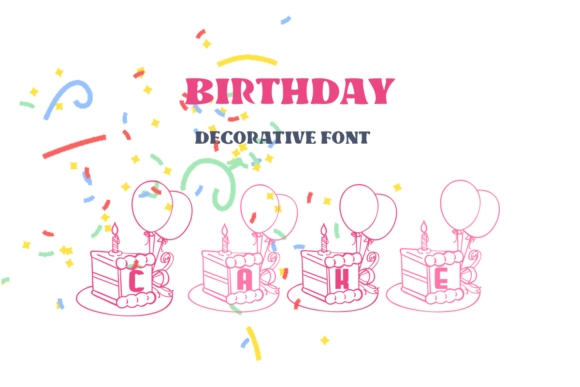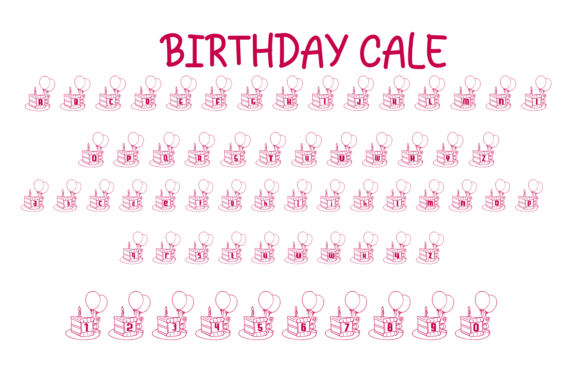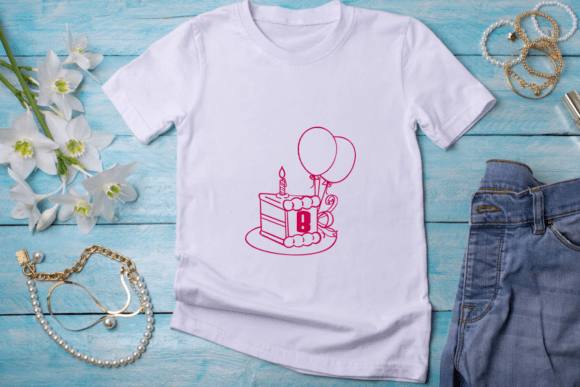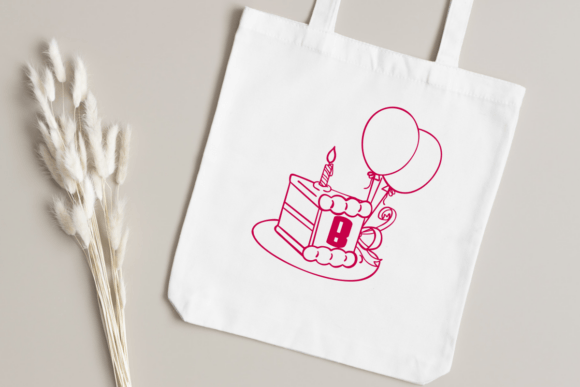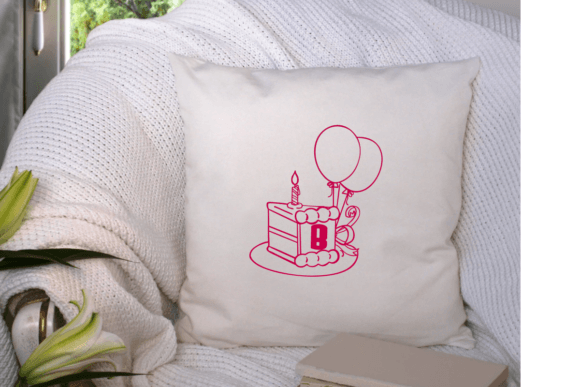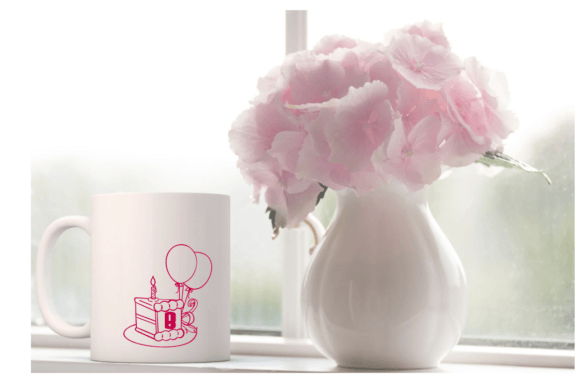
The Sweetest Font for Your Designs: A Deep Dive into Birthday Cake Font
I’ll never forget the time I was working on a birthday card project for a client, and I just couldn’t find the perfect font to match the festive vibe. The client wanted something playful, yet elegant, and I was on a mission to deliver. That’s when I stumbled upon the Birthday Cake font, and it instantly became the star of the show! 🎉 In this article, I’ll share my love for this decorative font, its features, and how you can use it to take your designs to the next level.
• ✨ Playful and whimsical: Birthday Cake font is perfect for creating festive and fun designs that scream celebration!
• ✅ Highly versatile: You can use it for taking notes, writing a diary, making greeting cards, or creating stunning designs for banners, social media posts, mugs, and more!
• 🎉 Easy to read: Despite its decorative nature, the font remains clear and readable, making it perfect for both digital and print designs.
⚠️ While Birthday Cake font is amazing, it’s not perfect. Here are a few things to keep in mind:
• 🤔 May not be suitable for very formal designs: As a decorative font, it might not be the best choice for projects that require a more professional tone.
• ⚠️ Some characters may not work well in all sizes: Be mindful of the font size, as some characters might not render well in very small or very large sizes.
The Story Behind Birthday Cake Font
While the actual designer of Birthday Cake font remains unknown, it’s clear that they were on a mission to create a font that would bring joy and celebration to designs. The font’s playful, whimsical feel makes it perfect for any project that needs a festive touch. Whether you’re designing a birthday card, a party invitation, or a social media post, Birthday Cake font is sure to impress.